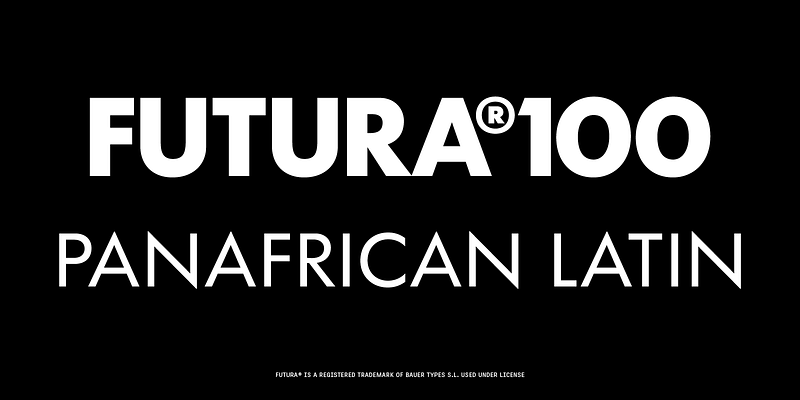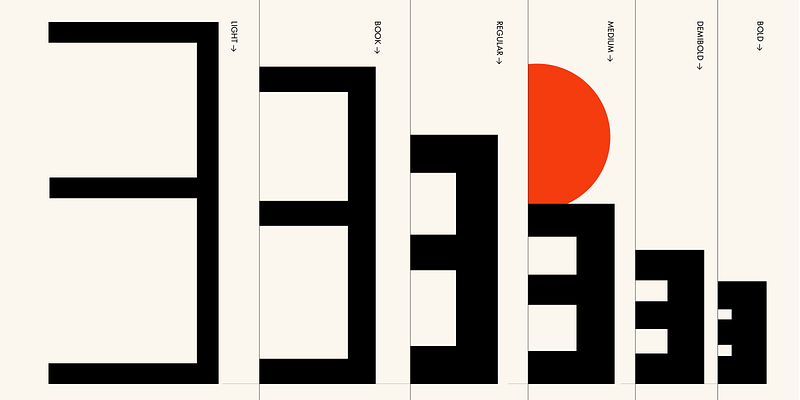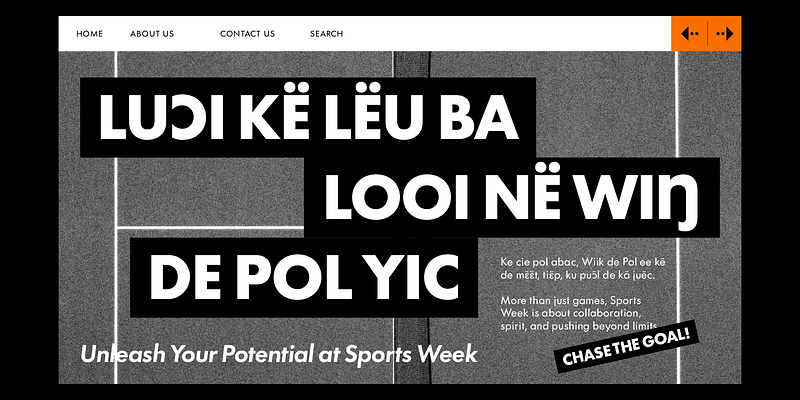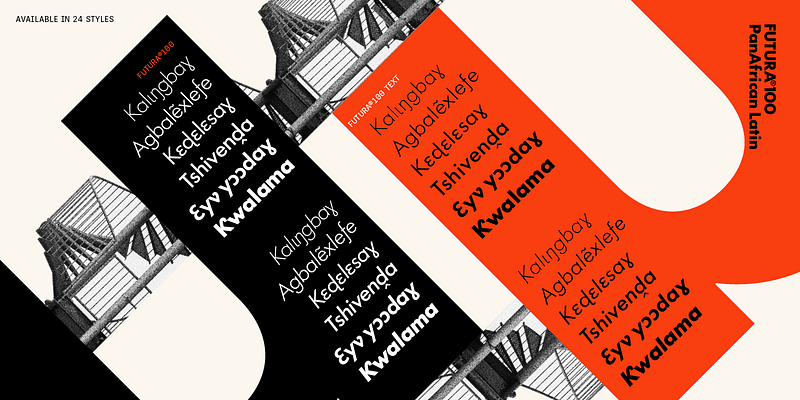
Futura®100 — the iconic geometric family for branding, surety, and standout presence — is now one of the few truly global type families. It communicates in 12 scripts and more languages than ever before. With upcoming language support for more than 90% of the world’s population, the revitalised warmth of Futura®100 is historically introspective, globally applicable, and stylistically comprehensive.
Futura®100 was created by TypeTogether and a global team of experts over a period of several years, and released in partnership with Bauer Types, the owner of Renner’s original design and trademarks, and the heir to this typographic legacy. It offers a complete set of OpenType capabilities, while a fully featured variable font provides infinite flexibility for setting type in dynamic environments, both online and offline.